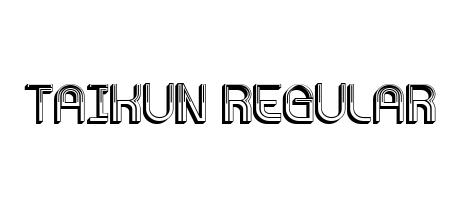
Taikun
Taikun Regular possesses a bold, geometric aesthetic. Its clean lines and consistent stroke weight give it a modern, almost futuristic feel. The slightly condensed letterforms create a sense of density and power, suitable for headlines or branding where strong visual impact is desired. The overall effect is one of confident simplicity.